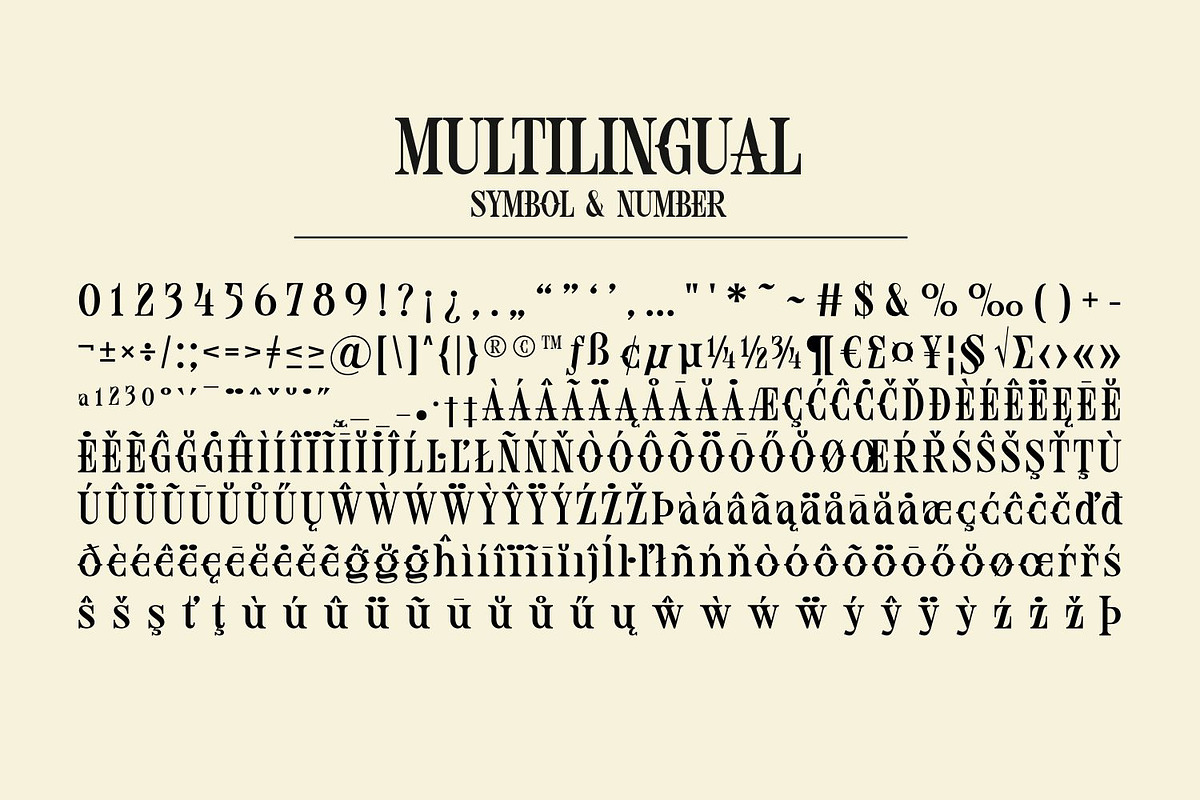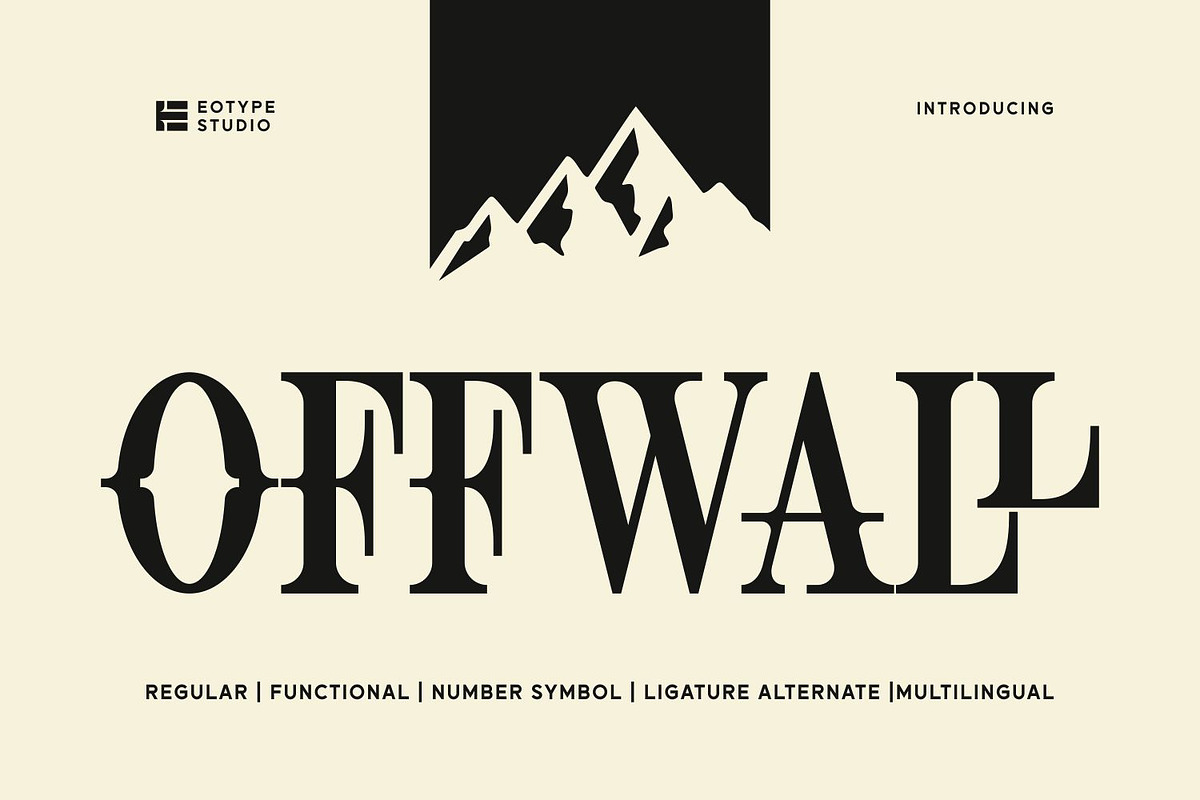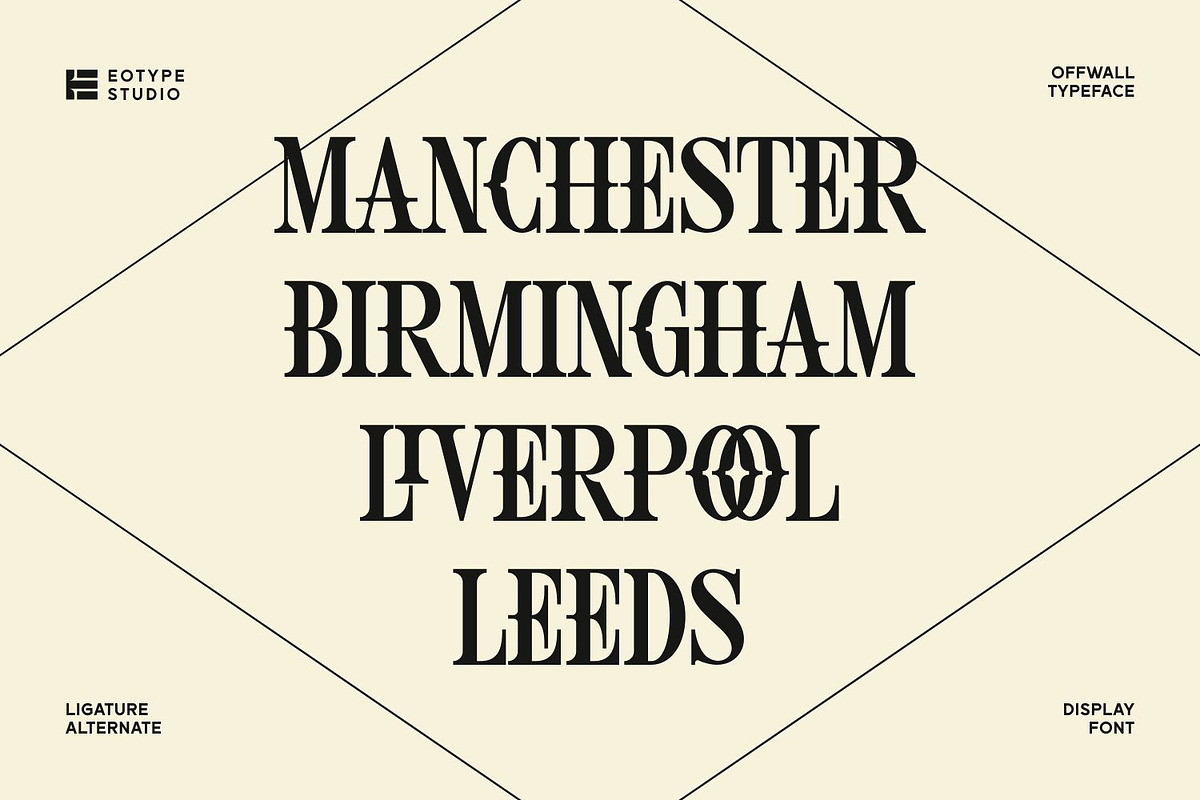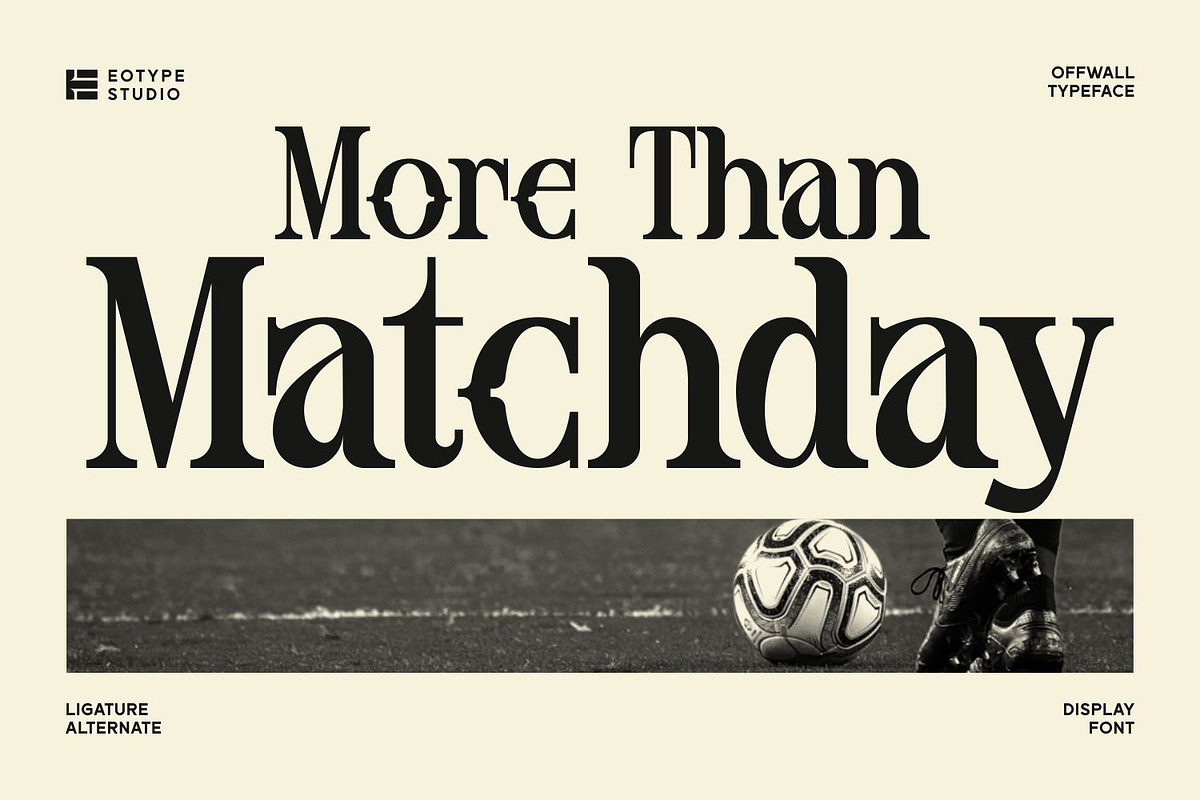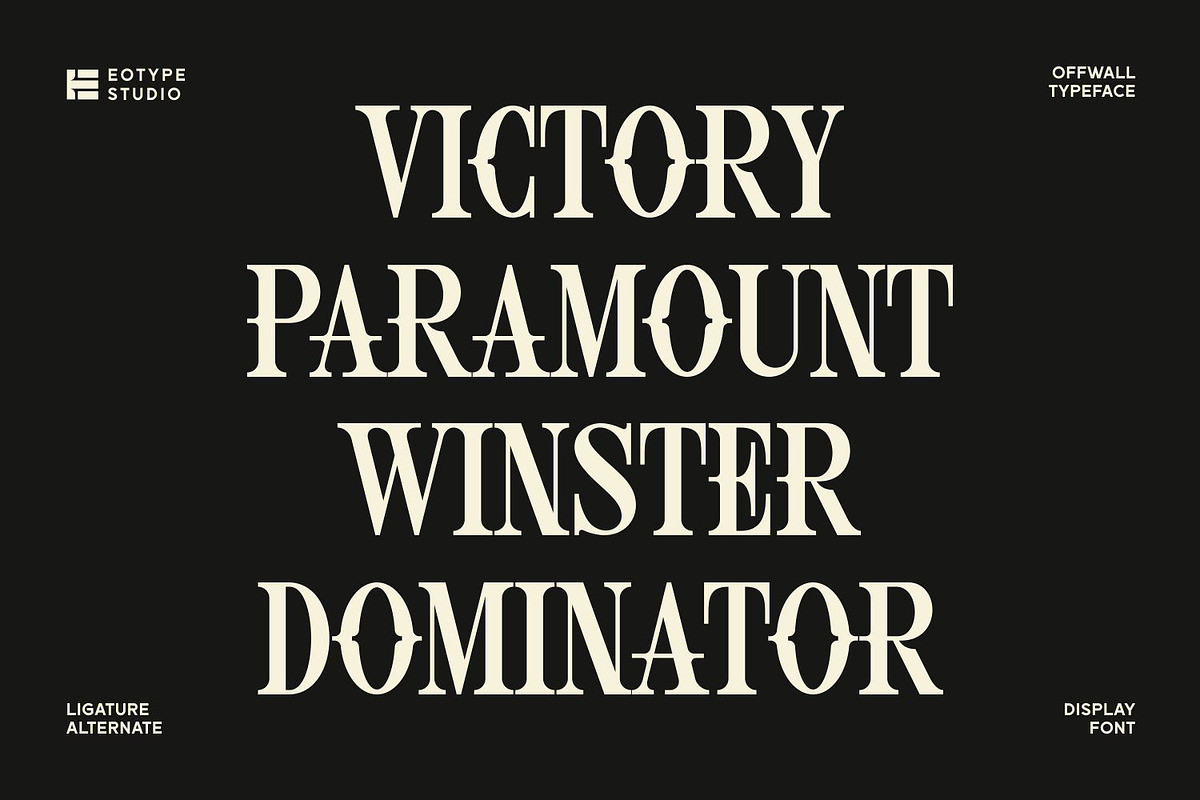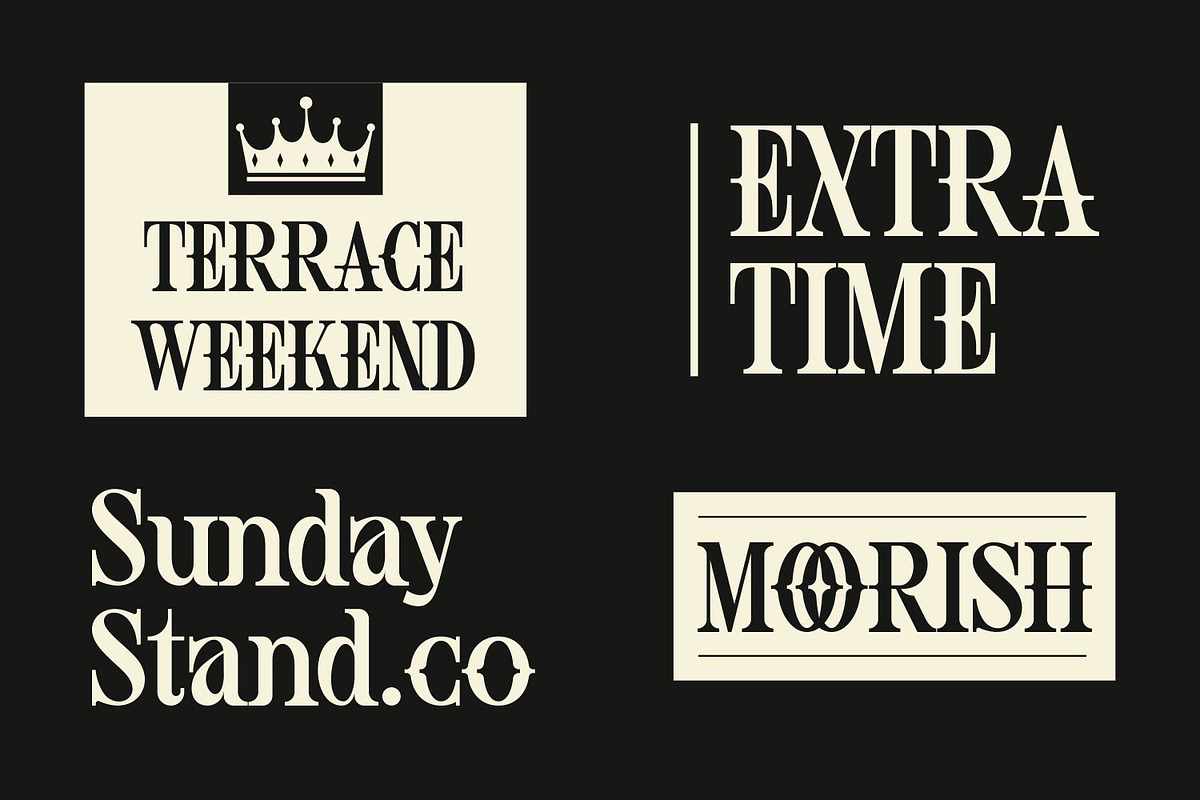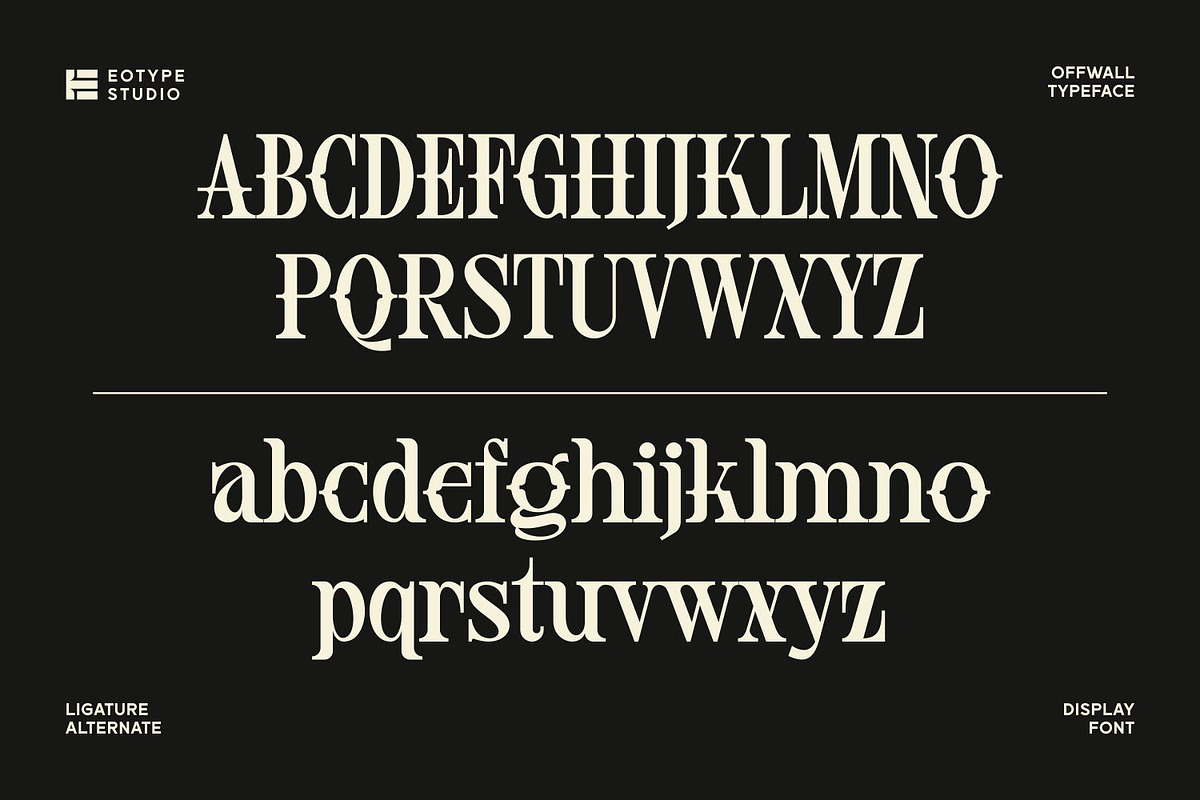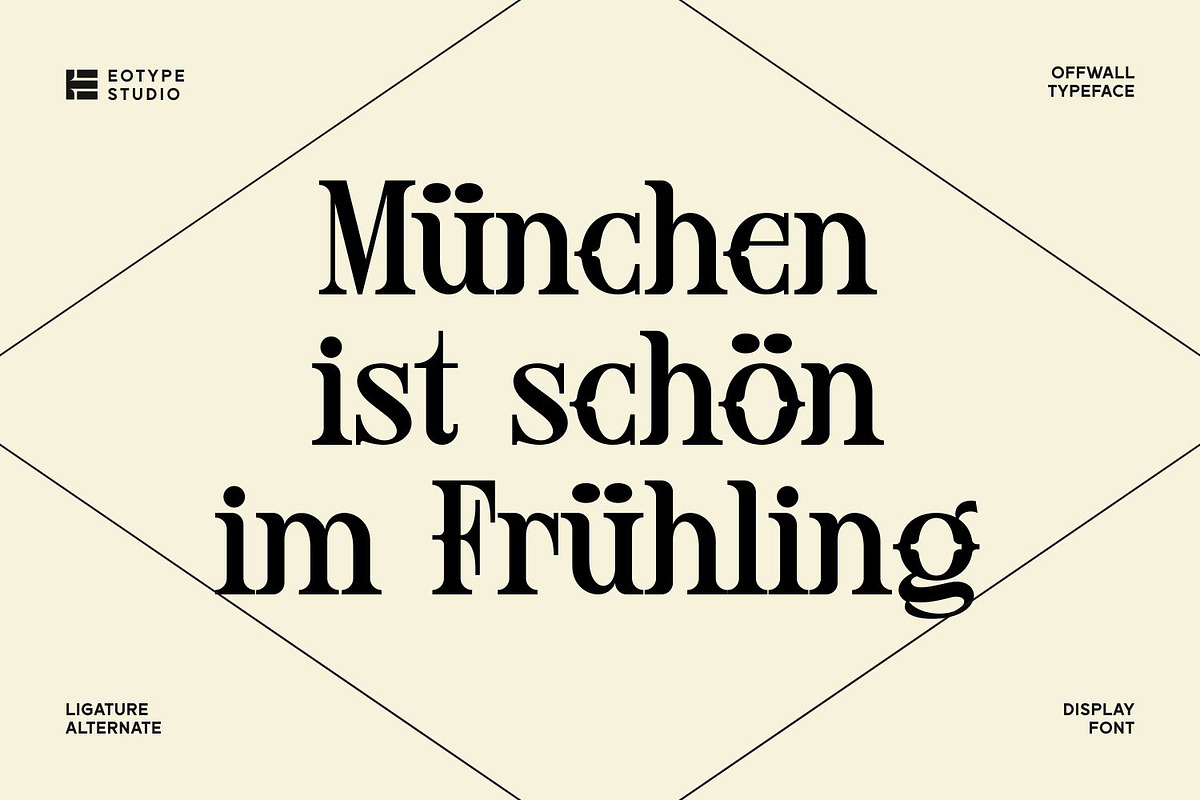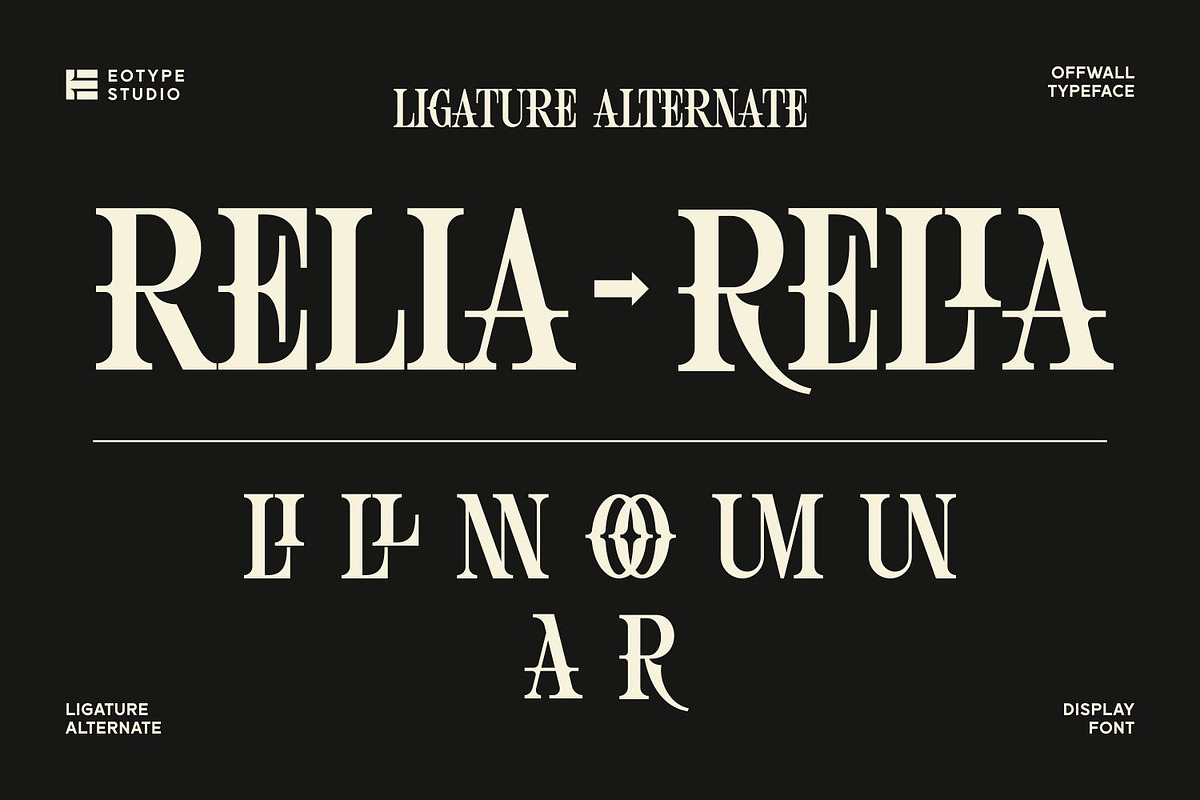
OFFWALL – Display Serif Typeface
OFFWALL is a bold and expressive display serif typeface designed to make a strong visual statement. Inspired by a blend of classic serif elegance and modern experimental shapes, OFFWALL brings a unique personality to any design project.
With its high contrast strokes, distinctive curves, and eye catching ligatures, this typeface is perfect for branding, editorial layouts, posters, headlines, logos, packaging, and more. The carefully crafted letterforms deliver both sophistication and artistic flair, making it ideal for designers who want to stand out.
OFFWALL comes fully equipped with a rich set of features including stylish ligatures, alternate characters, punctuation, and multilingual support giving you flexibility and creative freedom in your typography.
- Uppercase & Lowercase letters
- Unique Ligatures & Alternates
- Elegant & Artistic Serif Style
Whether you're working on a luxury brand, fashion editorial, or creative poster, OFFWALL adds a refined yet edgy touch to your designs.